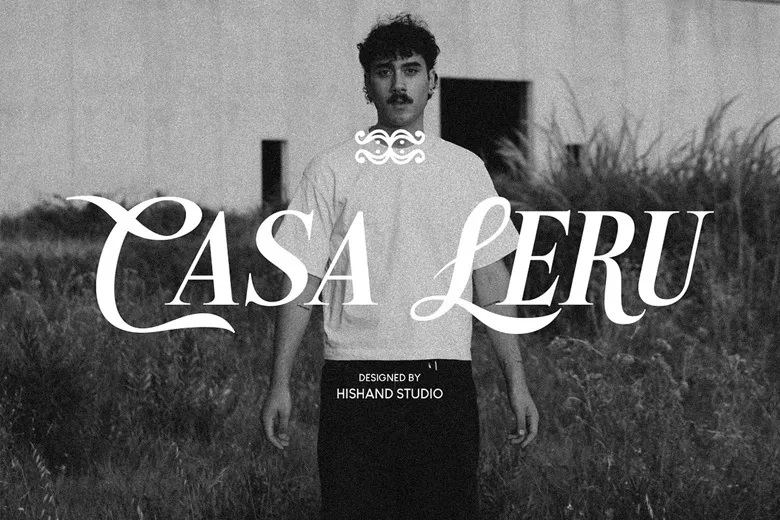
Casa Leru Font
Casa Leru is a high-end serif font that creates a perfect mix of the structure and elegance characteristic of a Serif and the fluidity of a Script. The design is developed in such a way that it creates a feeling of high-end luxury, combining sharp, refined stems with gentle, handwritten flourishes. This desired contrast results in a visual rhythm, which is both architectural and organic and is, therefore, the perfect option when a brand needs to convey heritage with a modern, poetic soul.
The silhouette of the font is characterized by tall and narrow proportions and excessive contrast between thick and thin strokes, the image of a quiet luxury in the high-end fashion and artisanal work. All characters are exquisitely designed to appear custom-tailored, with an amazingly beautiful flow that feels the hand of a master calligrapher on a traditional printed sheet. Either as a simple logotype or an expansive editorial title, Casa Leru is impressive with a hint of enduring elegance.